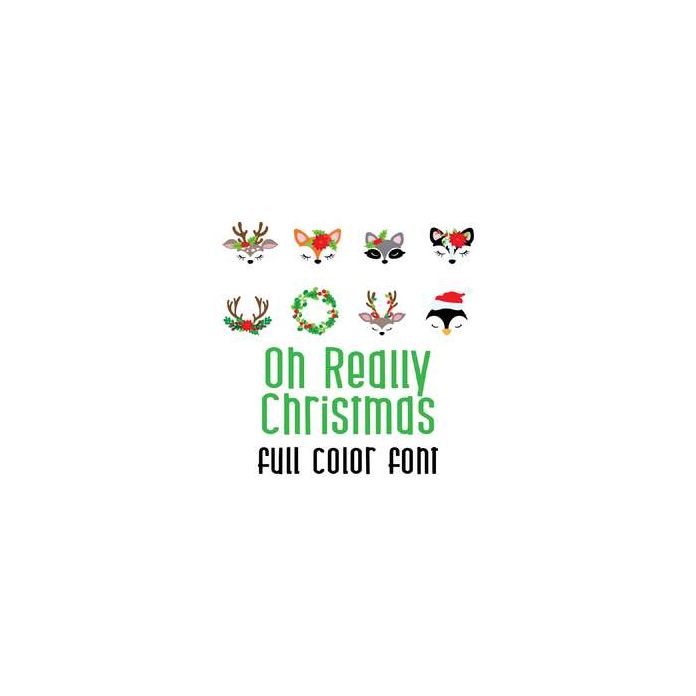
This adorable full color doodlebat font features beautiful animals heads with Christmas floral head pieces. Perfect for cards, crafts, gifts, decor, scrap book pages, planner stickers and more!